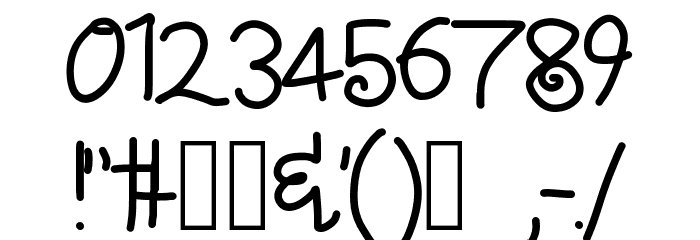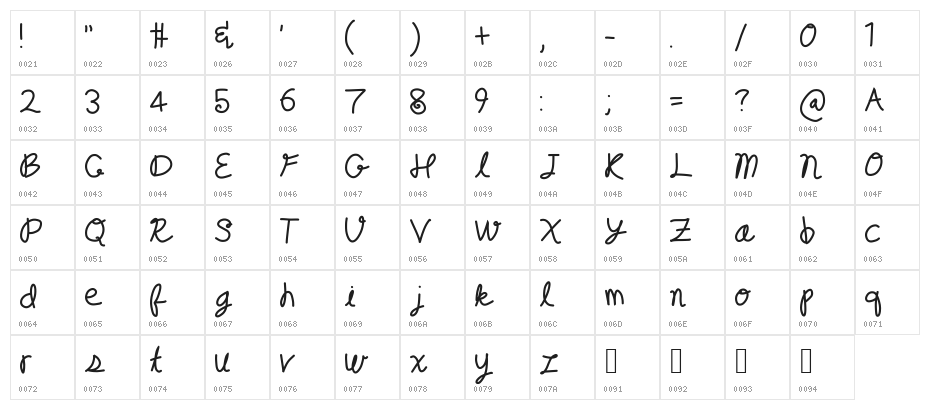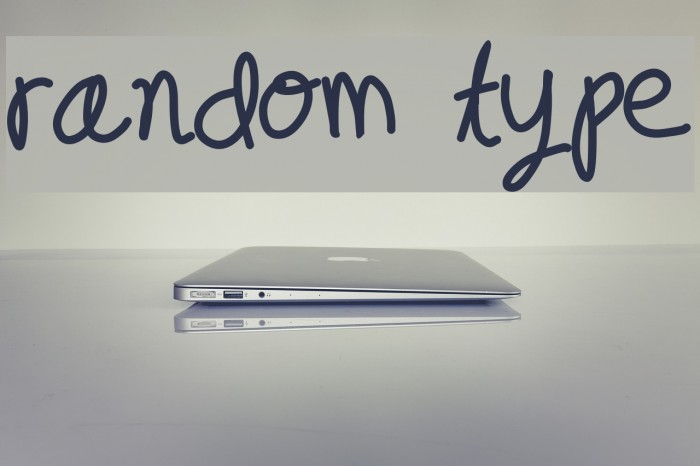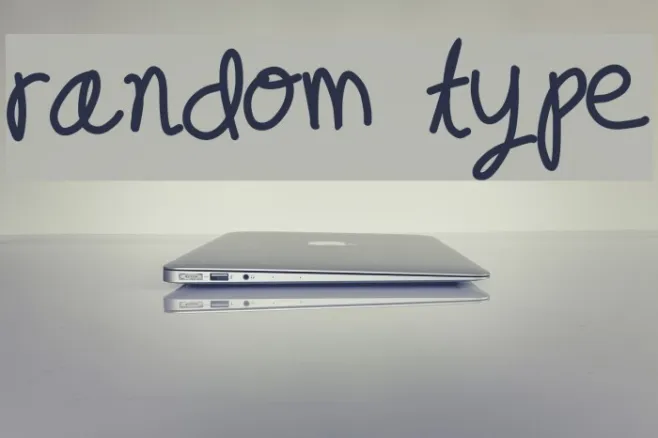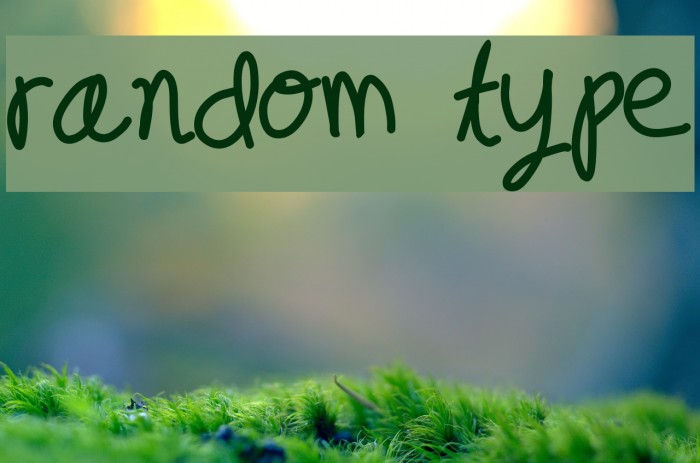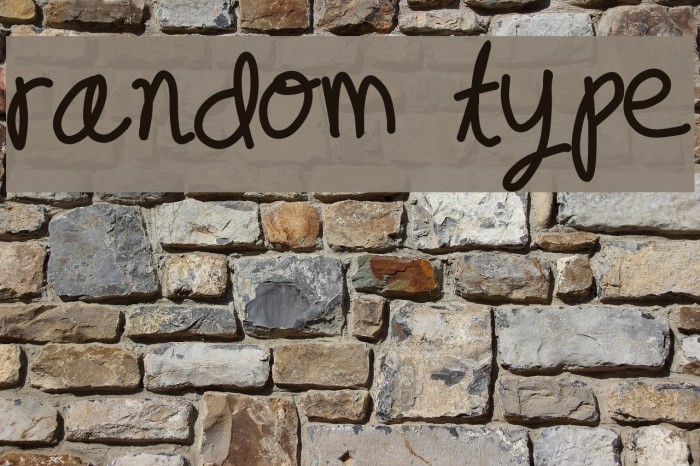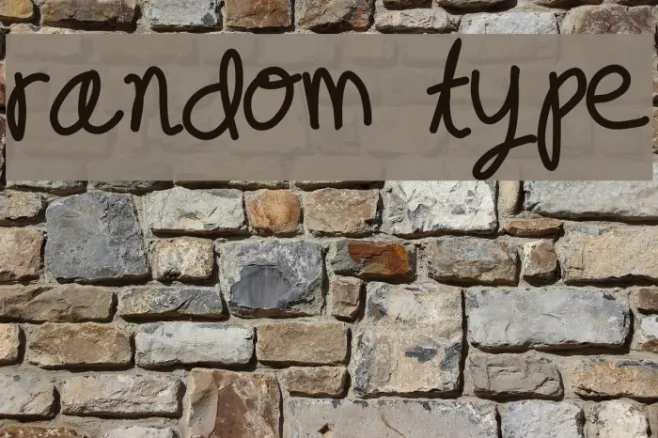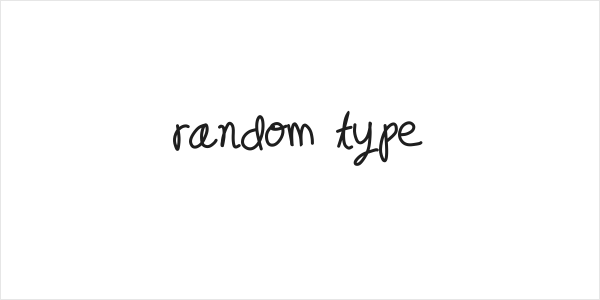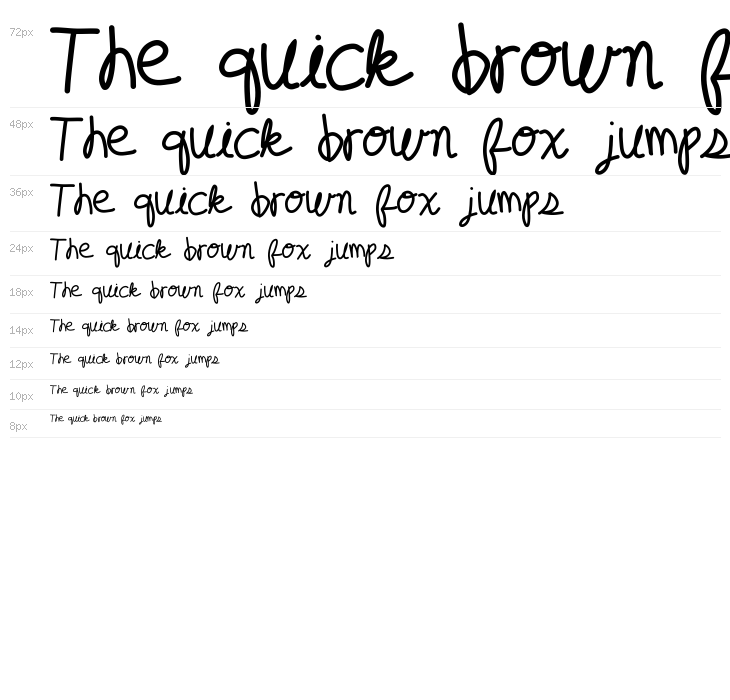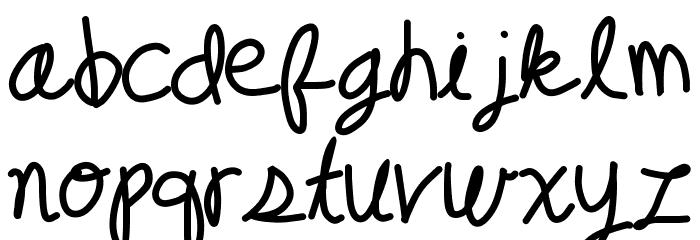
random type Font
random type Description
This font features a playful and whimsical handwritten style, characterized by its fluid and connected letterforms. The uppercase letters are bold and expressive, with a slight slant that adds to the casual feel. The lowercase letters maintain the same playful nature, with unique loops and curves that give each character a distinct personality. Numbers are equally dynamic, with rounded edges and a consistent flow. Special characters are creatively integrated, maintaining the overall aesthetic. This font's lively and informal style makes it ideal for projects that require a personal touch.